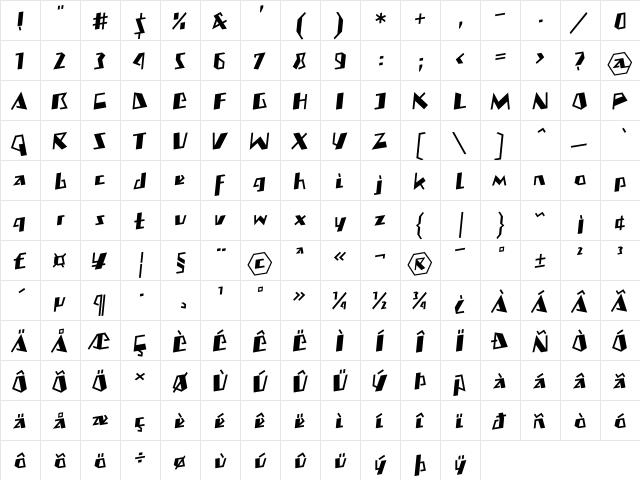
MateoBoldLL Regular
Design Context for MateoBoldLL Typeface
MateoBoldLL is a composed and adaptable typeface that performs quietly and consistently across a wide range of design contexts. The heavy weight commands attention and anchors typographic hierarchies.